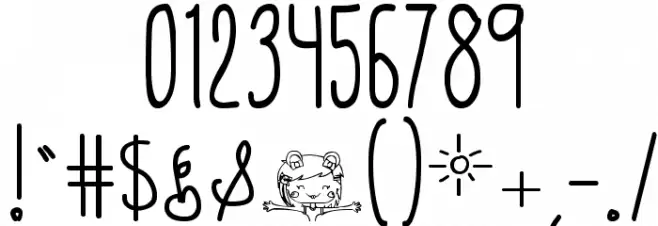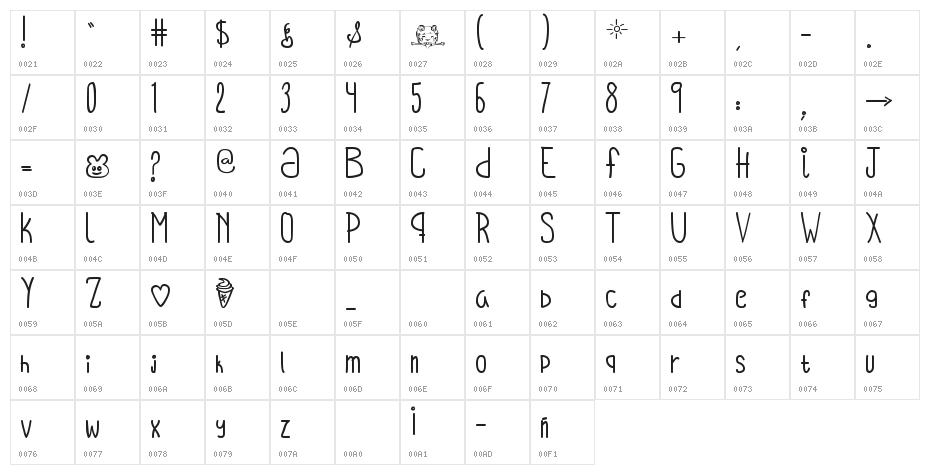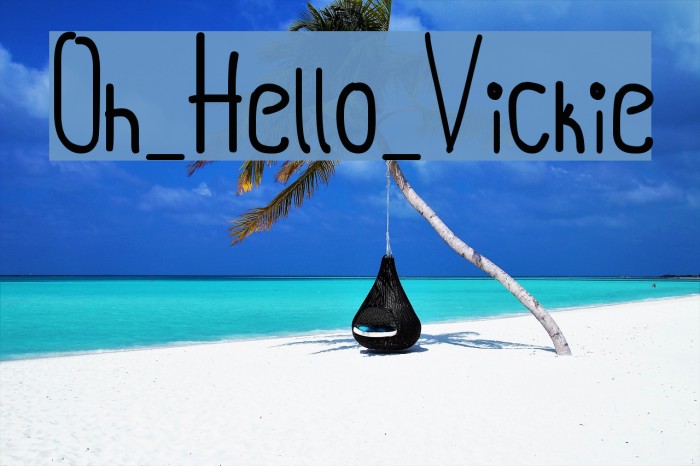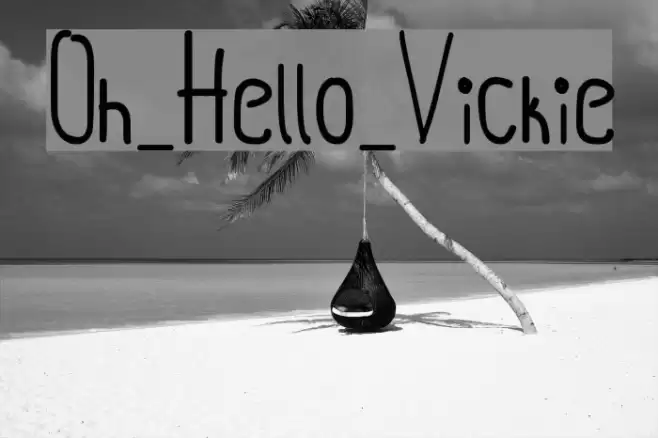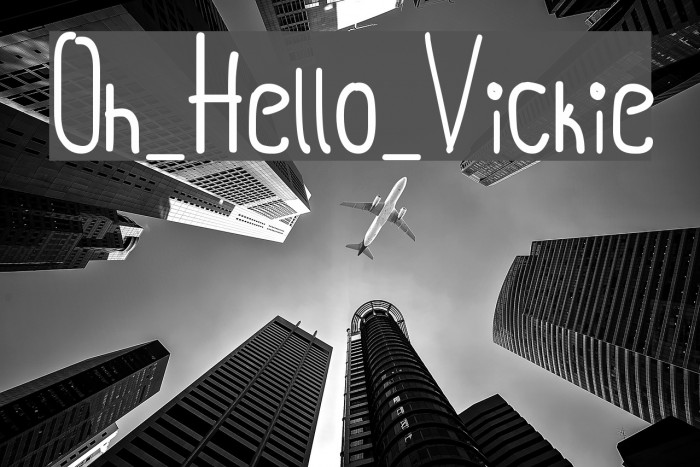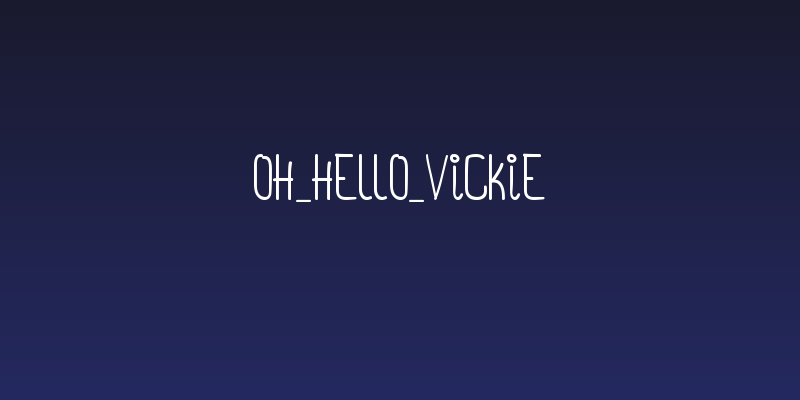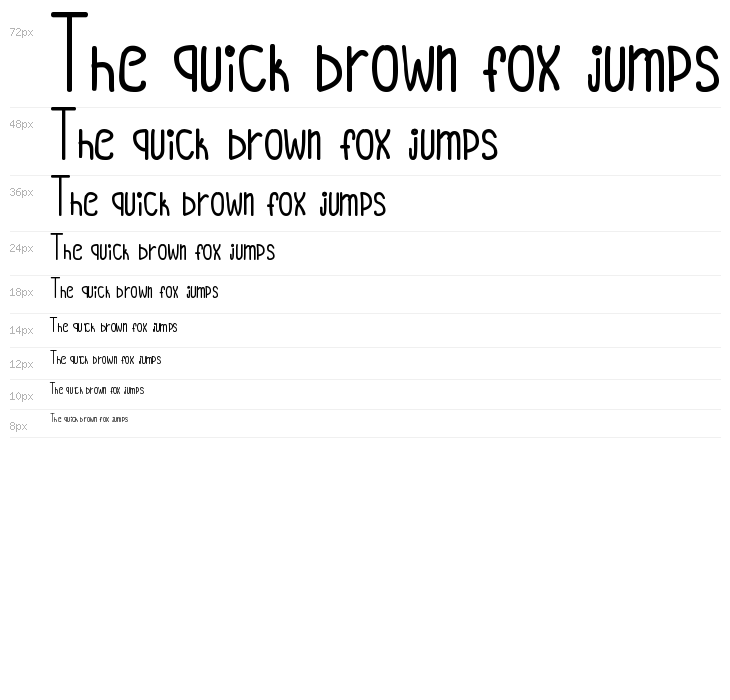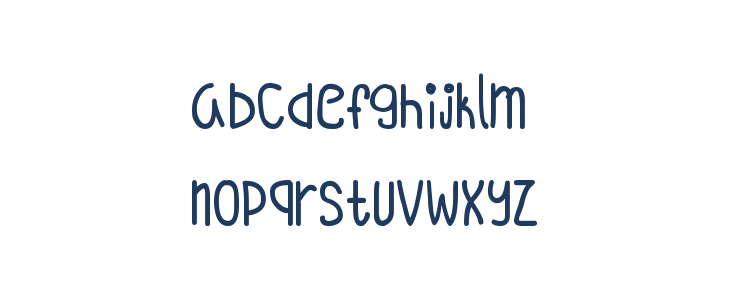
Oh_Hello_Vickie Font
Oh_Hello_Vickie Description
This playful and whimsical font features tall, narrow characters with a hand-drawn aesthetic. The uppercase letters are slightly elongated, giving them a unique and quirky appearance, while the lowercase letters maintain a consistent style with rounded edges and a friendly feel. The numbers are similarly styled, ensuring a cohesive look across all characters. Special characters are included, adding versatility to the font. The overall design is light-hearted and fun, making it suitable for creative projects that require a touch of personality.
| Overall Style | Whimsical |
| Proposed Projects | Ideal for children's books, greeting cards, playful branding, and creative posters. |